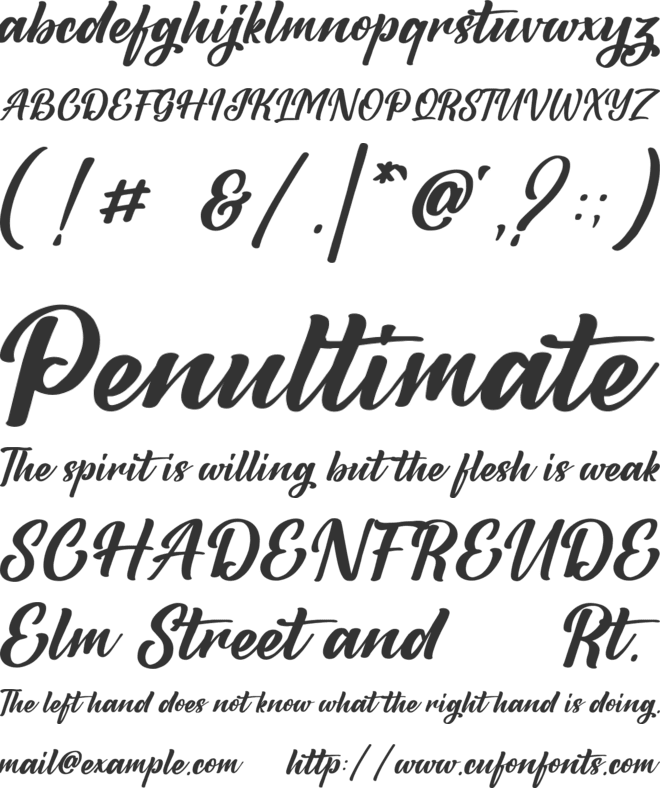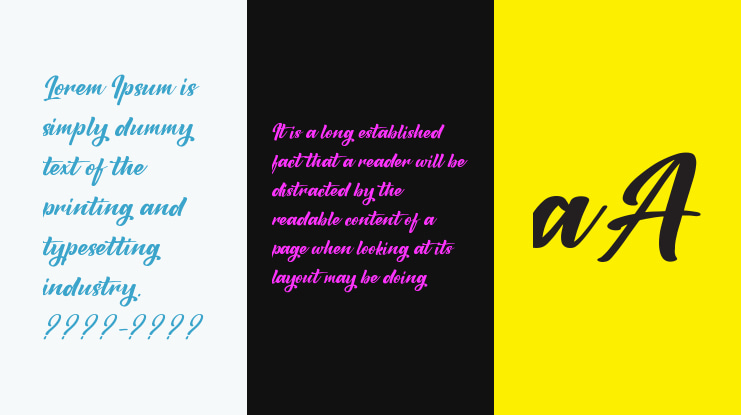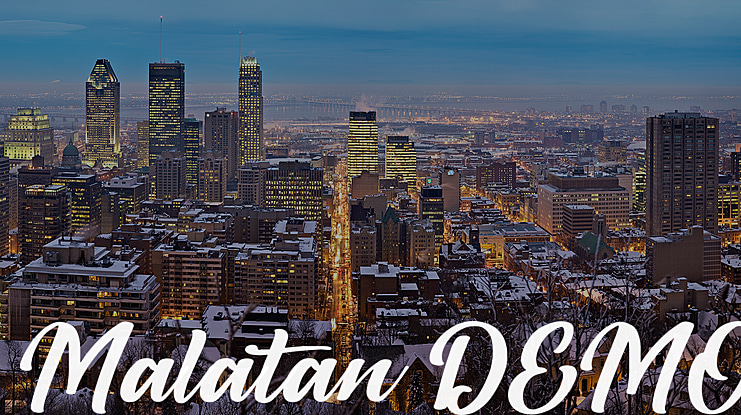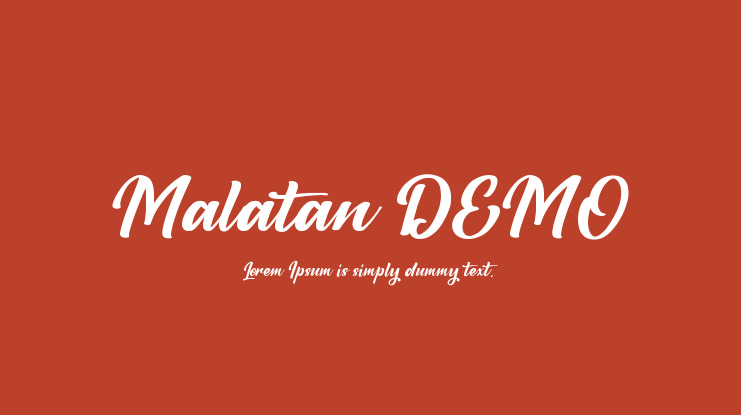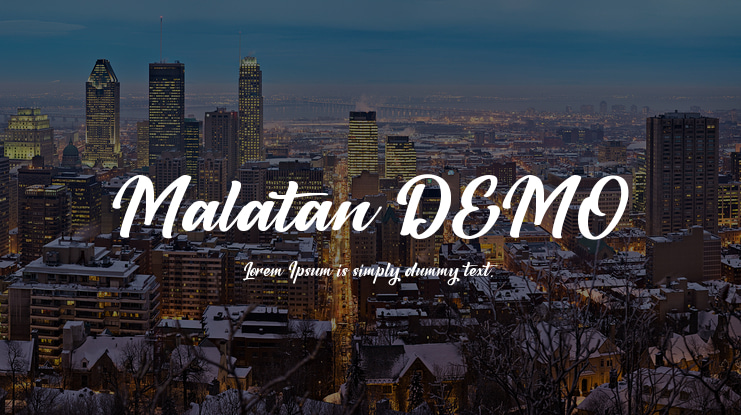
Malatan DEMO Font
Hi,,, Introducing "Malatan" a Modern Script Font!!! A typeface script font with set lowercase letters alternatives and 4 ligatures to complete your needs. This font is very good with multilingual support. And with built in Opentype features, this script comes to life as if you are writing it yourself. I adding extras beautiful vector to complete your need :) I make this font with serious so make this font look beautiful, natural, modern, classic and elegant, very suitable to make a branding, t-shirt, magazine, fashion, quotes, logo, packaging, and other.
Malatan DEMO font preview